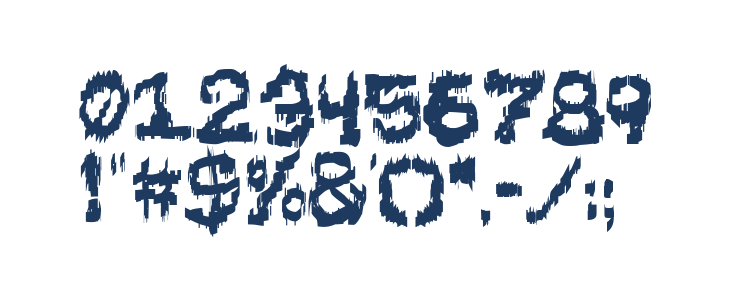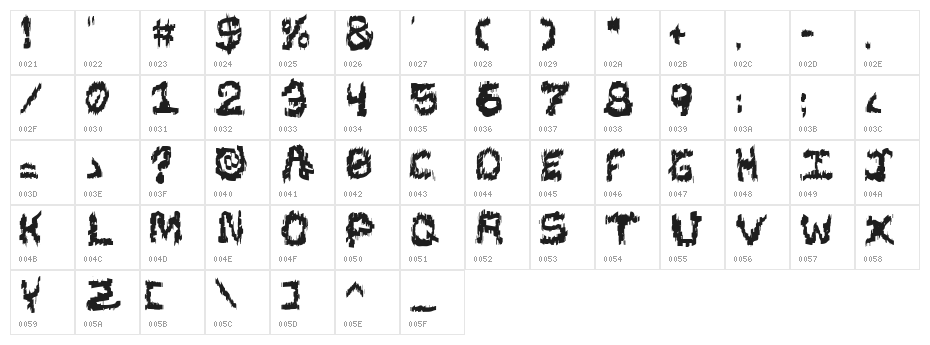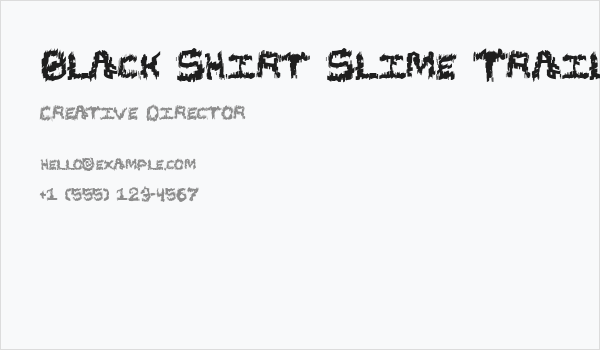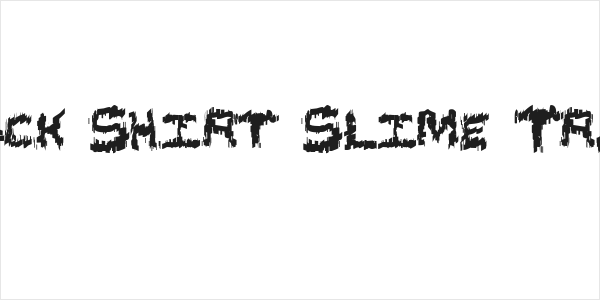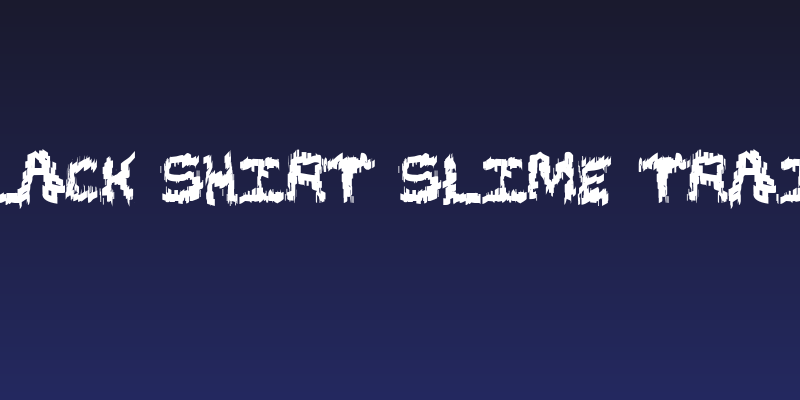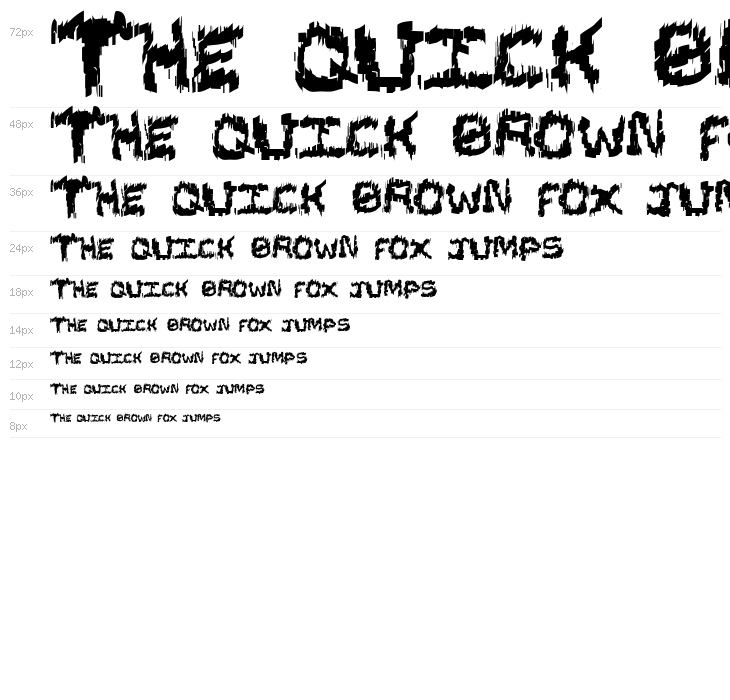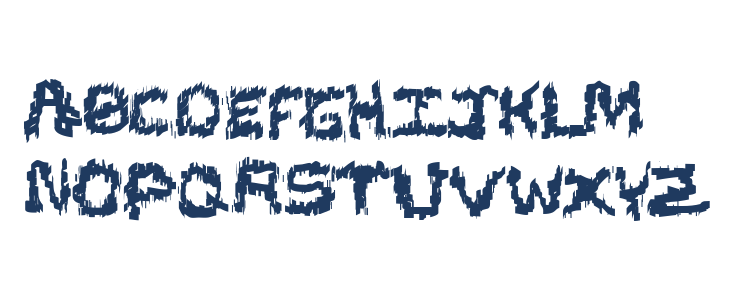
Black Shirt Slime Trail Font
Black Shirt Slime Trail Description
This font features a unique, distressed design that mimics the appearance of dripping slime or paint. The characters are bold and heavily stylized, with jagged edges and irregular forms that create a sense of movement and chaos. The uppercase and lowercase letters maintain this consistent theme, providing a cohesive look across the entire typeface. The numbers and special characters are equally dynamic, ensuring that any text set in this font will have a striking and unconventional appearance. Its distinctive style makes it ideal for projects that require a bold, eye-catching aesthetic.
| Use Case | Headlines, Posters, Branding |
| Proposed Projects | Ideal for Halloween-themed designs, horror movie posters, edgy branding, or any project needing a bold, unconventional look. |